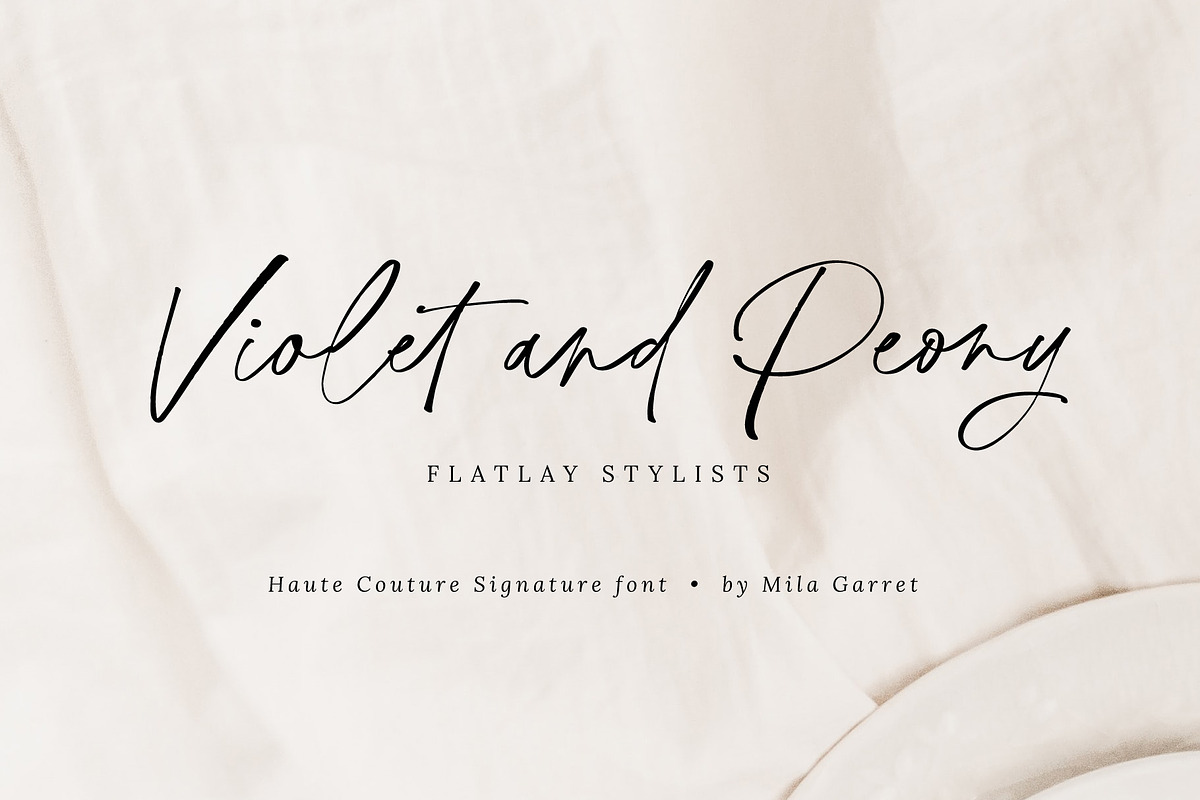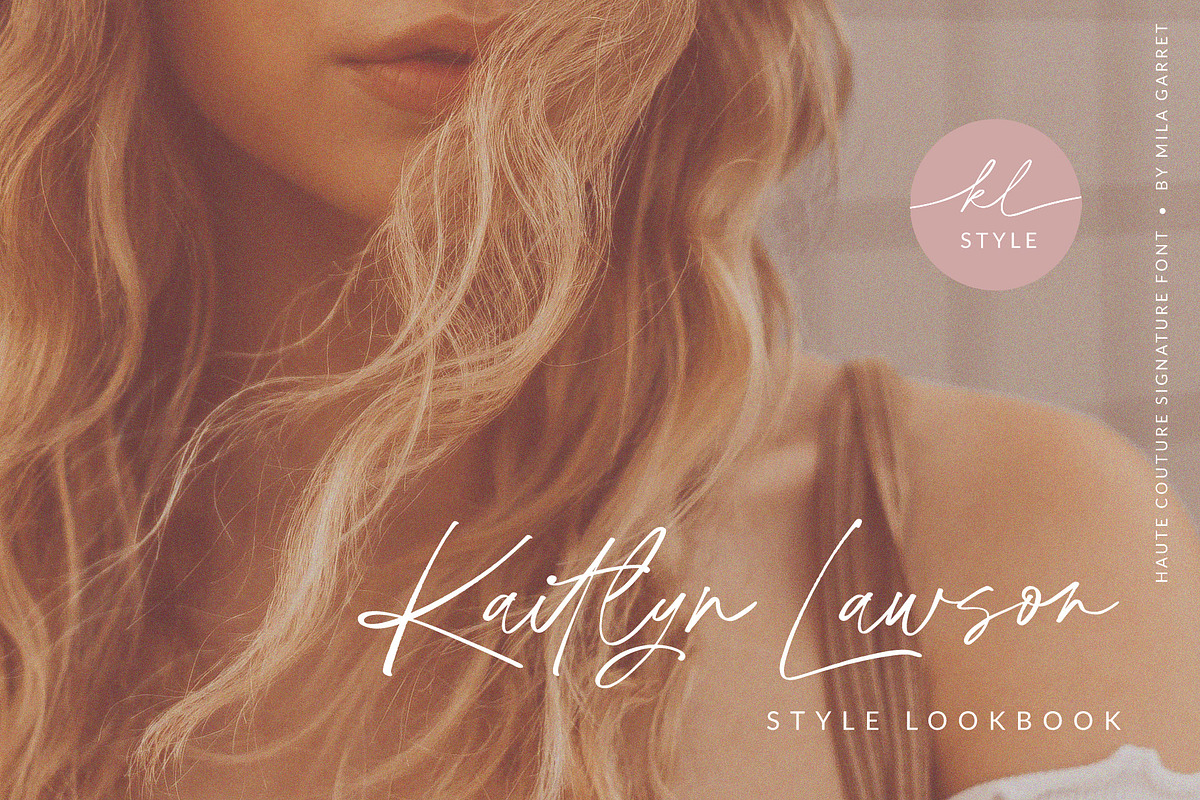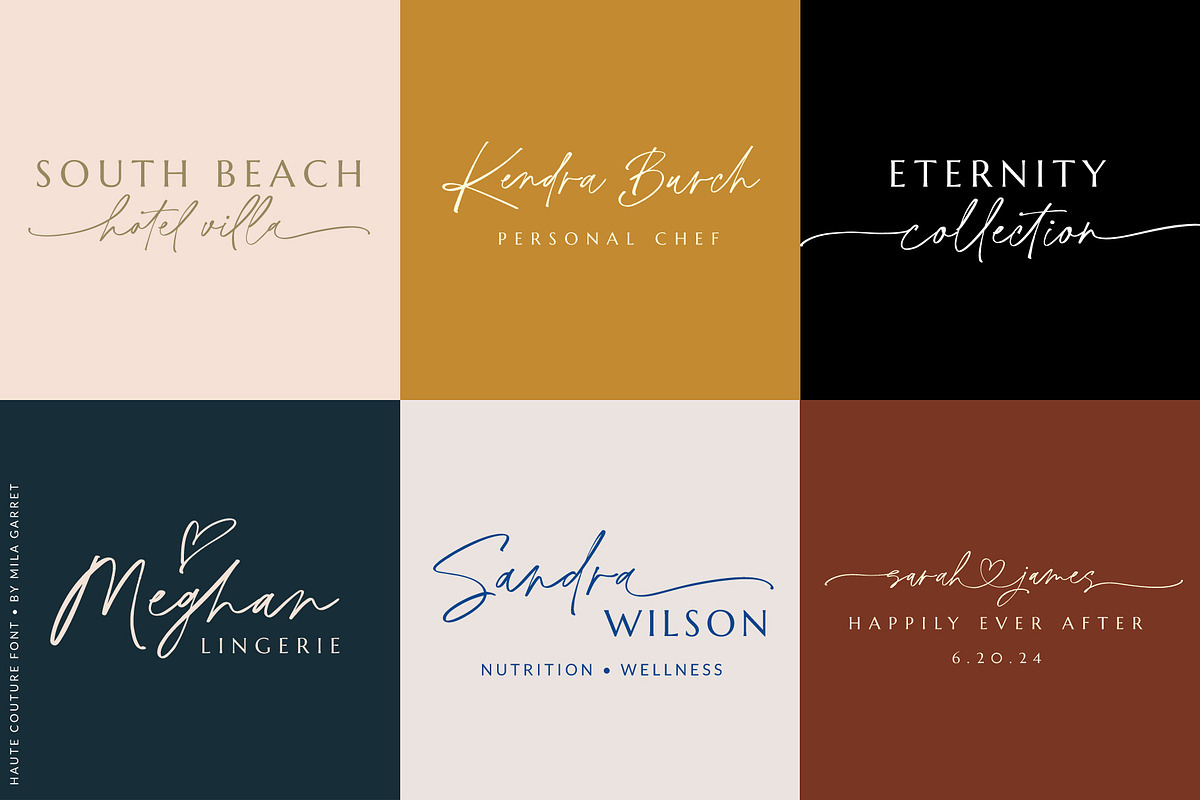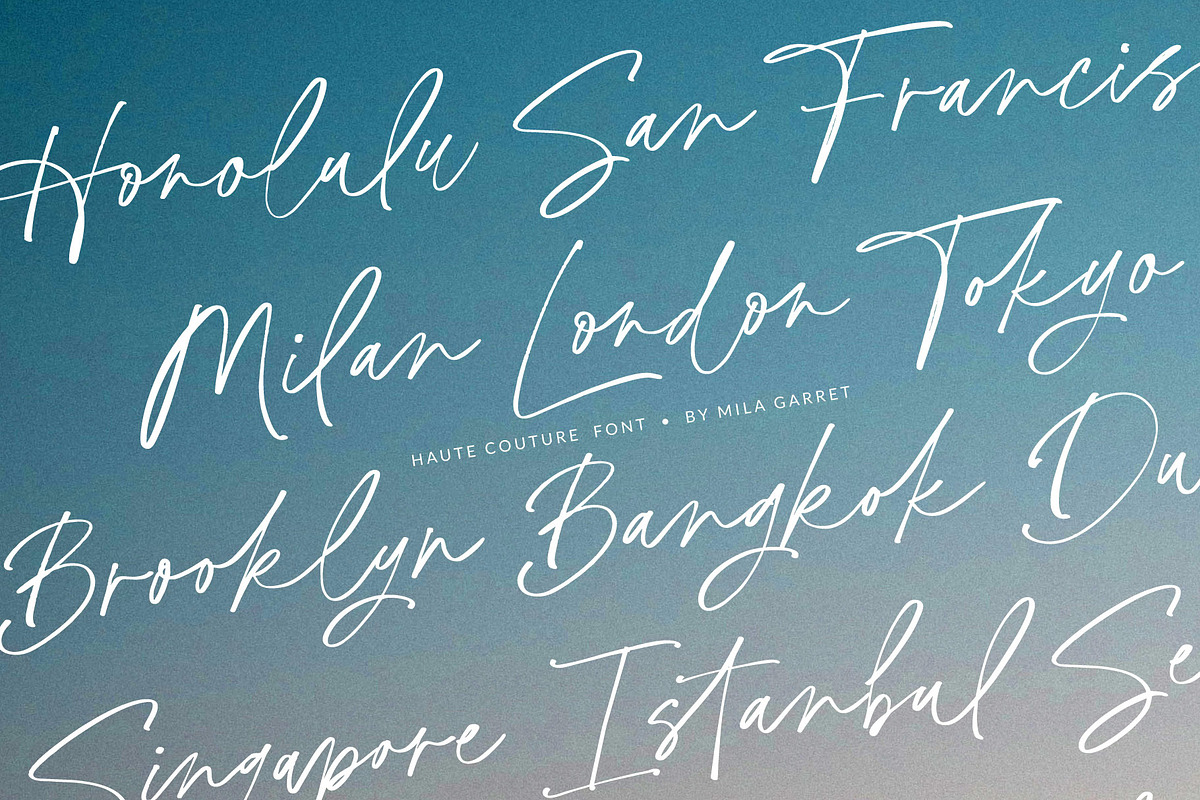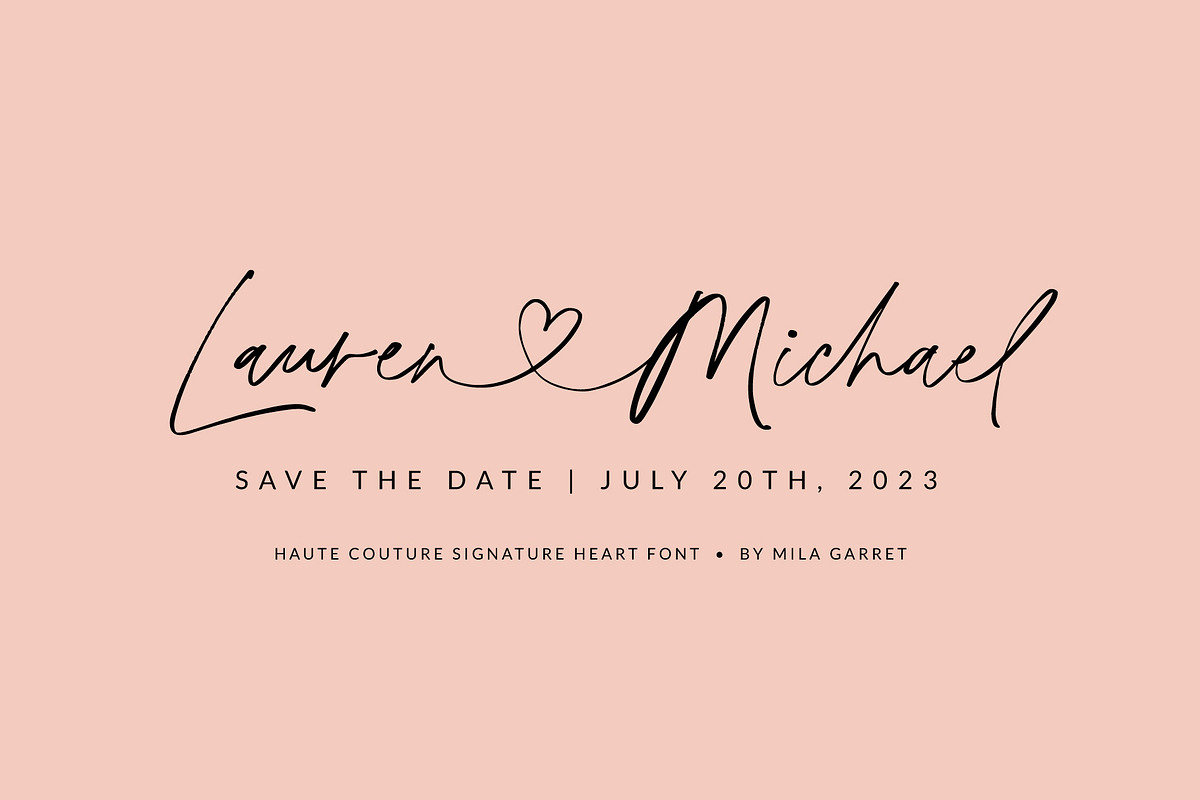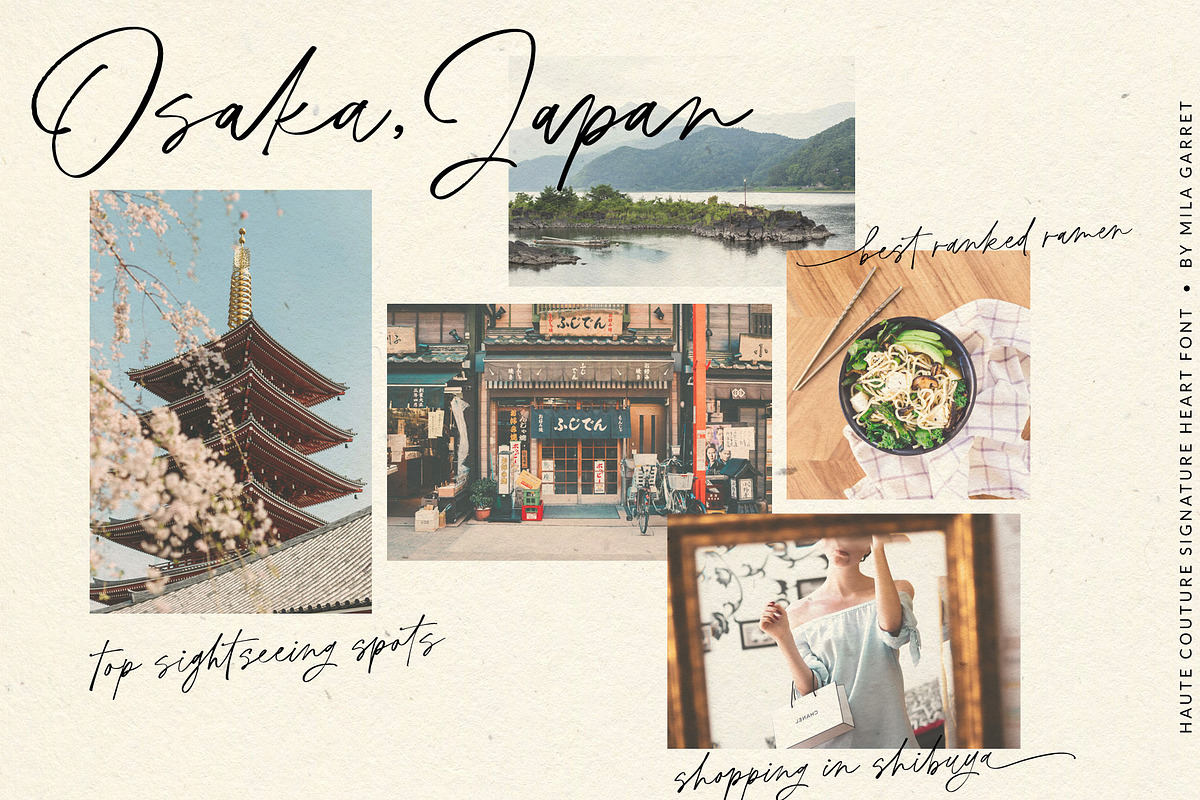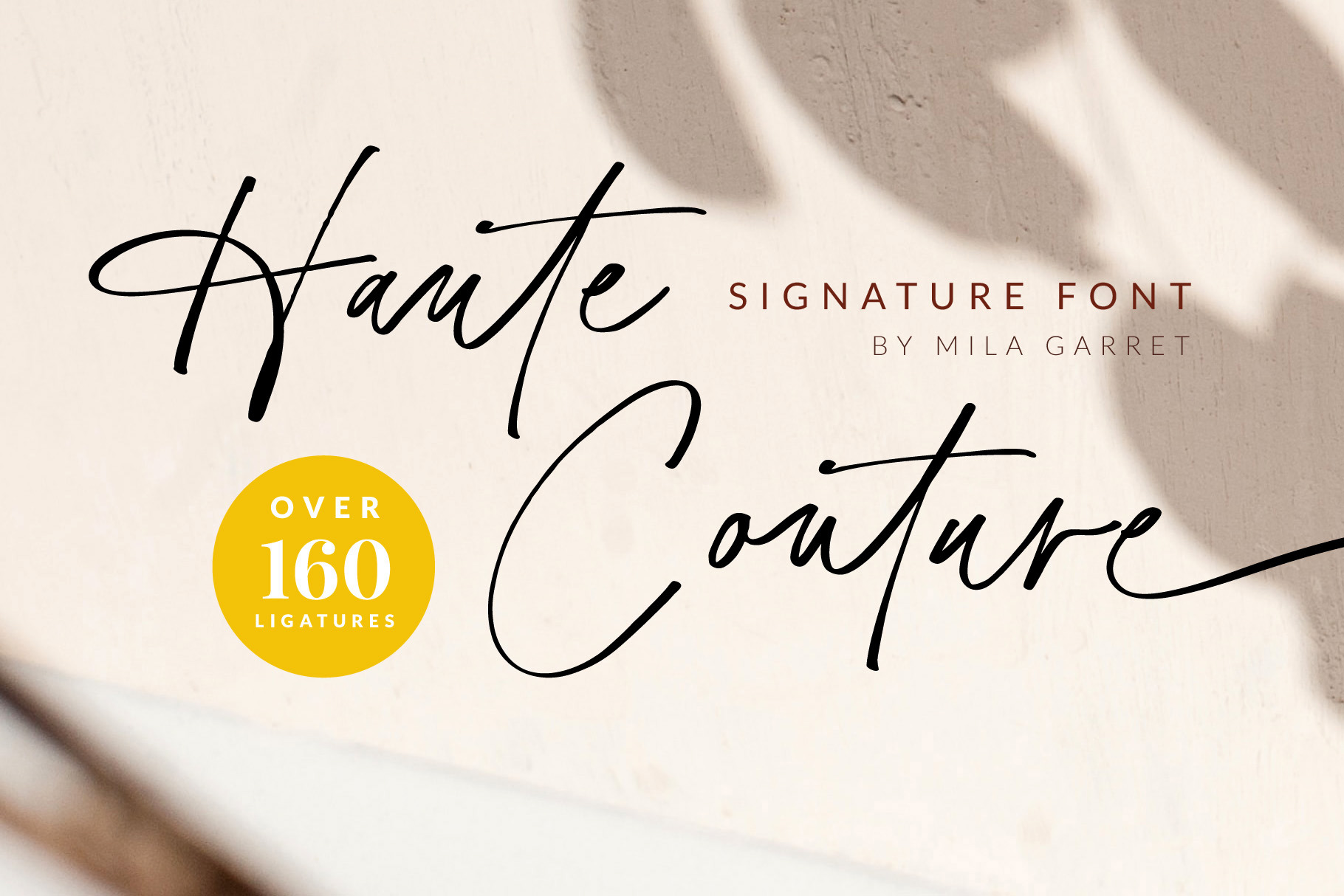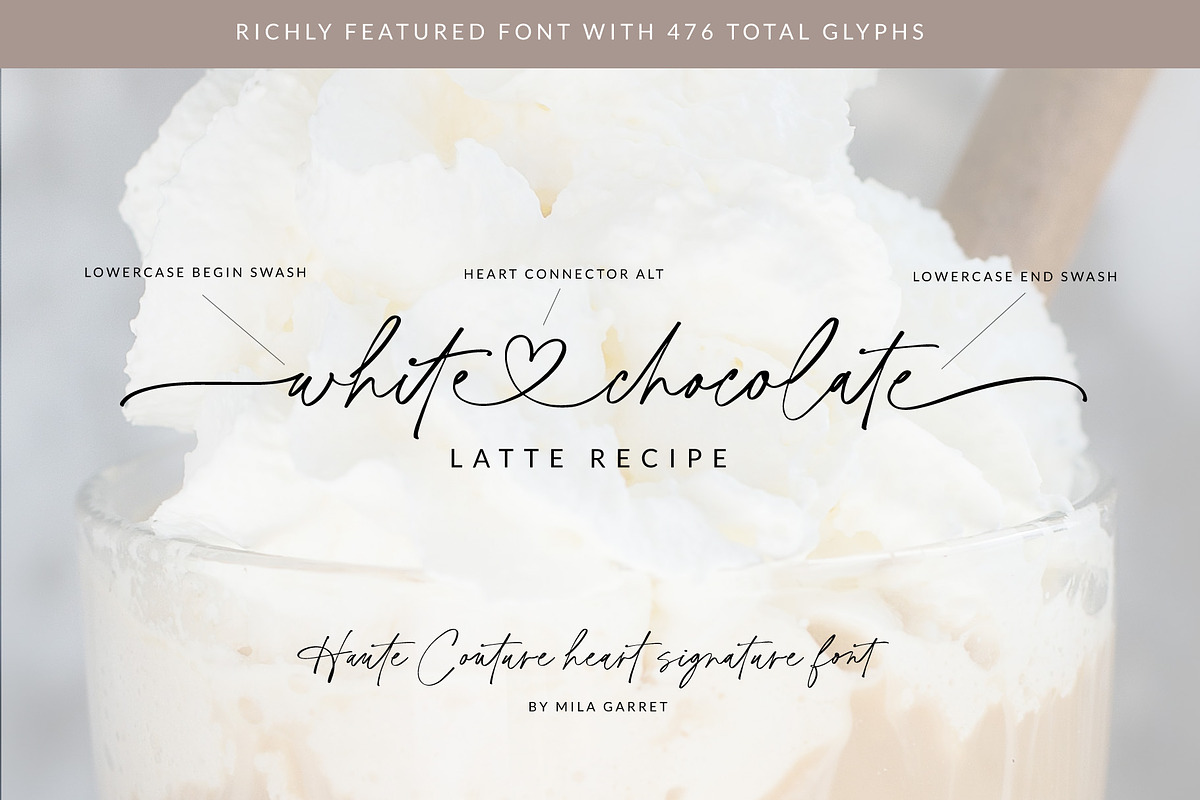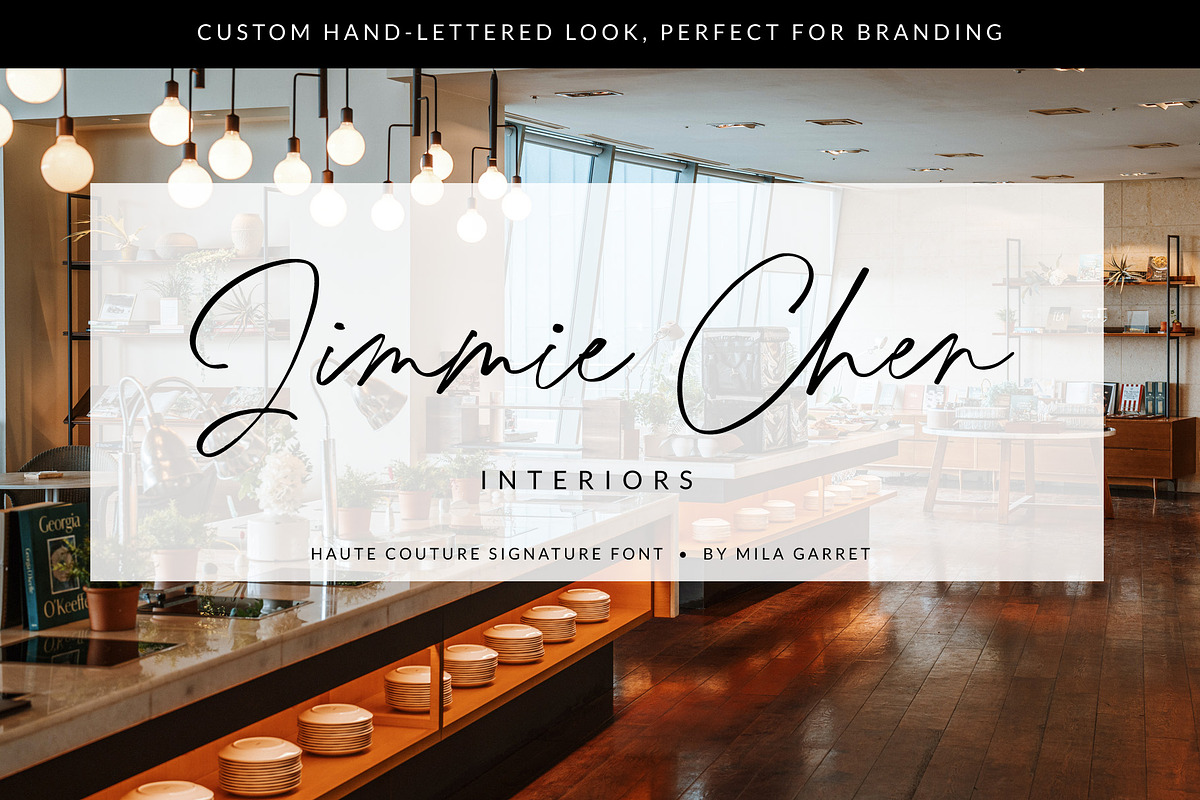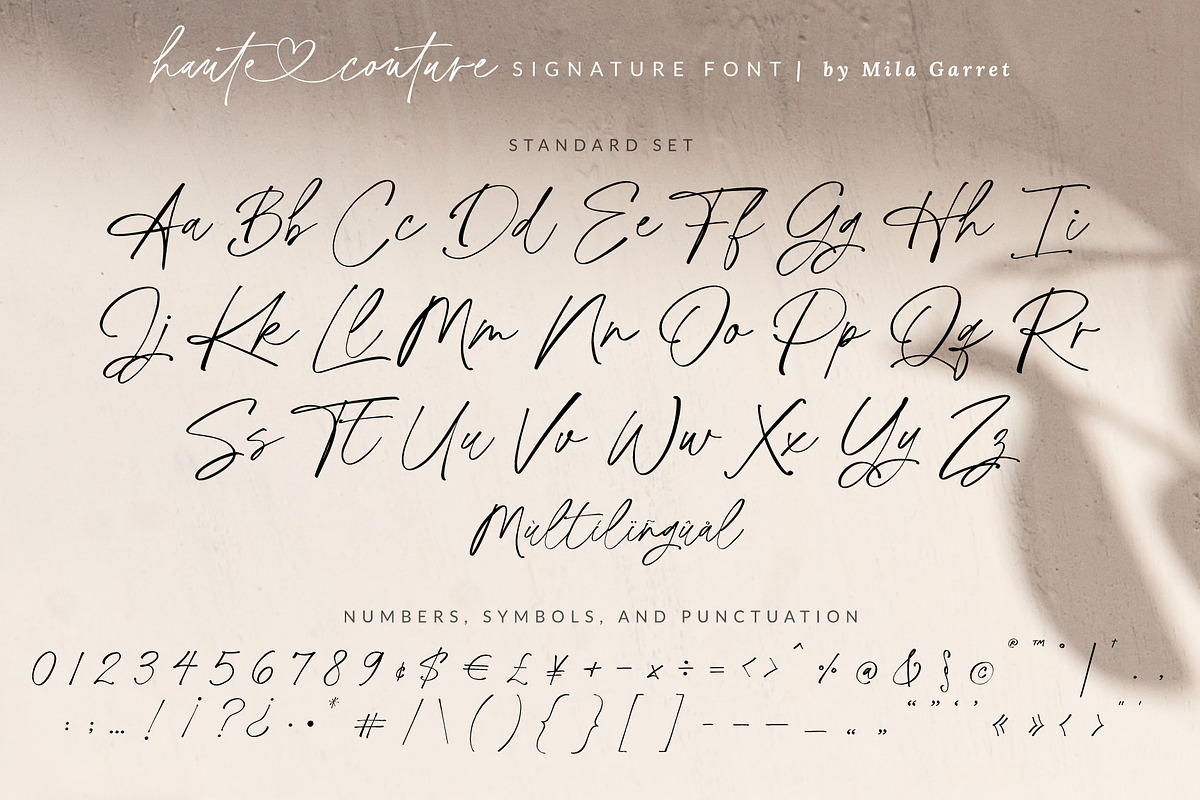
HauteCouture Handwritten Script Font
Haute Couture is a handwritten signature font with a calligraphy flair, ideal for creating handwritten-style logos, wedding stationery, photographer watermarks logos, modern websites, and more.
Haute Couture features heart connectors, handwritten ligatures, and beginning and end swashes for lowercase letters.
Haute Couture Font Features
- Full Set of standard alphabet and punctuation
- Extra set of beginning swashed lowercase
- Extra set of ending swashed lowercase
- Extra set of heart connectors lowercase (connects to both Upper and Lowercase)
- 163 handwritten ligatures for a custom, hand-lettered look
- Multilingual Characters (ÁÂÄÀÅÃÆÇÐÉÊËÈÍÎÏÌÑÓÔÖÒØÕŒÞÚÛÜÙẂŴẄẀÝŶŸỲ áâäàåãæçðéêëèíîïìñóôöòøõœþßúûüùẃŵẅẁýŷÿỳŠŽšž€£¥ªº)